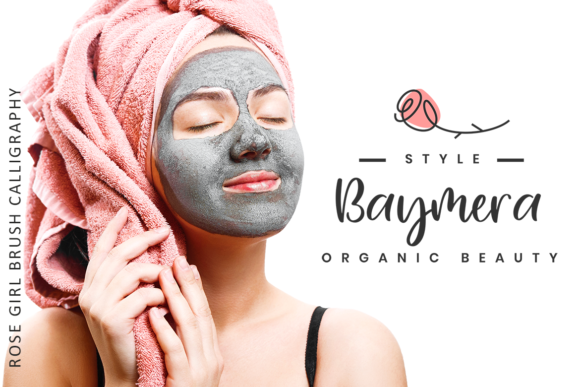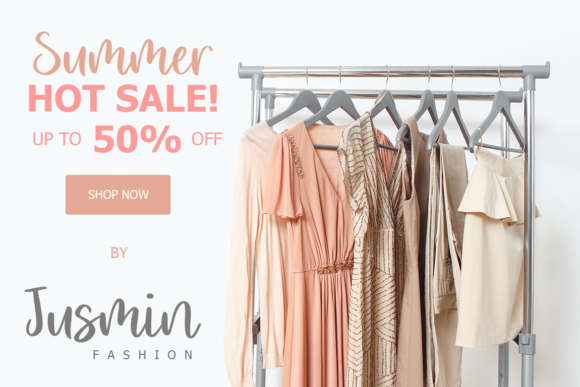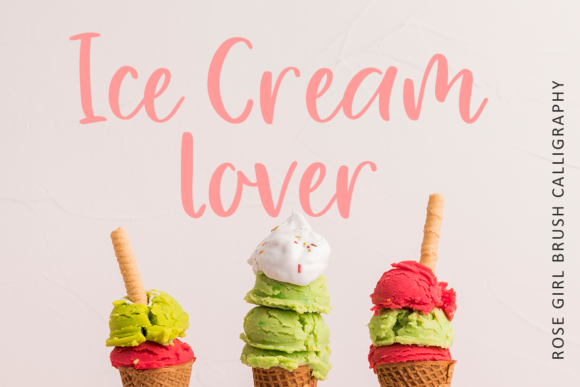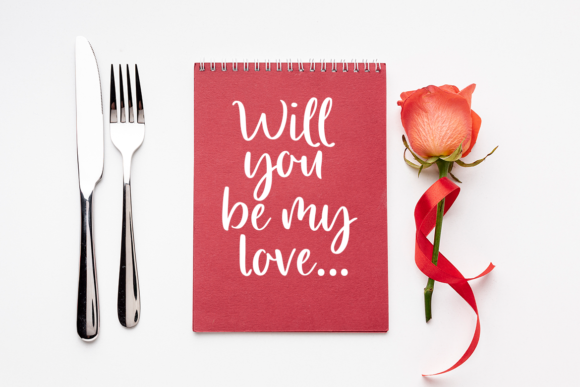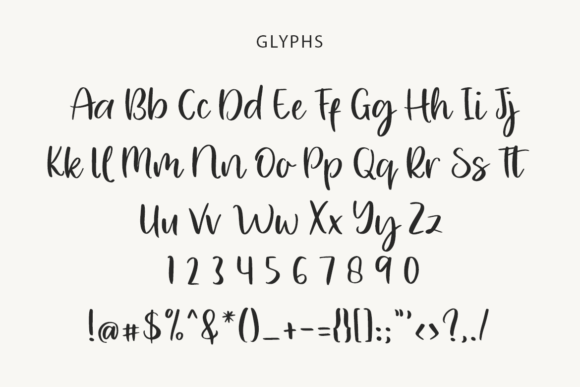
Rose Girl Font
About Rose Girl Font
Rose girl results out of a stunning pairing of a brush pen and pencil that makes it look incredibly endearing and authentic. Use this gorgeous and unique handwritten font to bring any DIY project to life!